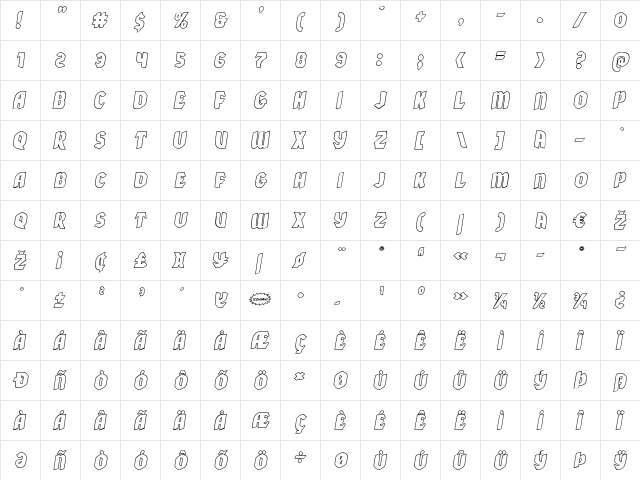
Xmas Xpress Outline Italic Italic
Design Context for Xmas Xpress Outline Italic Typeface
Xmas Xpress Outline Italic brings ornamental detail and strong personality to headlines and identities, where visual impact matters more than quiet functionality. The slanted form adds forward momentum and visual energy.
Font Pairing: Pair with a clean neutral sans-serif for body copy to let Xmas Xpress Outline Italic's character lead without overwhelming the composition.
Pro Tip: Use Xmas Xpress Outline Italic exclusively at display sizes — it was designed to be seen, not read at length. Let a neutral companion handle body copy.